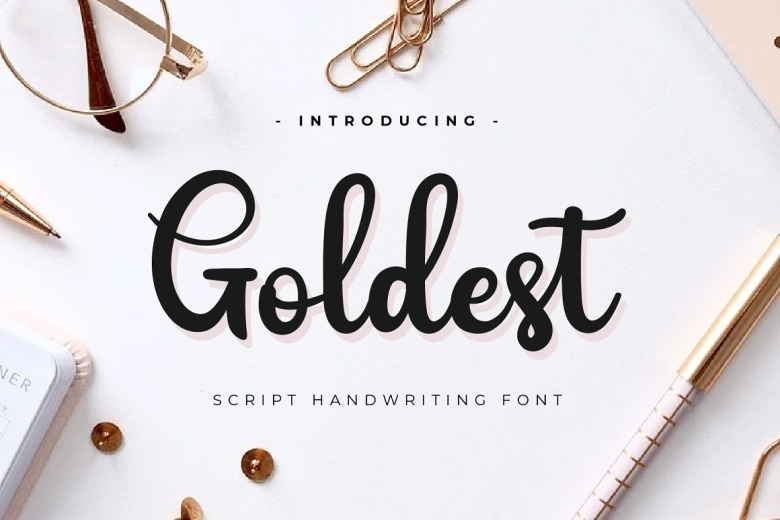
Goldest Font
Goldest Script Font which is created in detail to meet the needs of a charming, elegant and modern design. Using this font creates harmony and beauty in each of your designs, especially designs that require a touch of natural handwriting
Goldest Script Font is designed with a natural touch of handwriting which is refined to create a portion and composition that suits your needs. So this font is suitable for craft, children’s writing, adventure posters, food banner titles, wedding invitations, product packaging logos, quotes, social media page covers, furniture banner headlines, book covers, and much more.